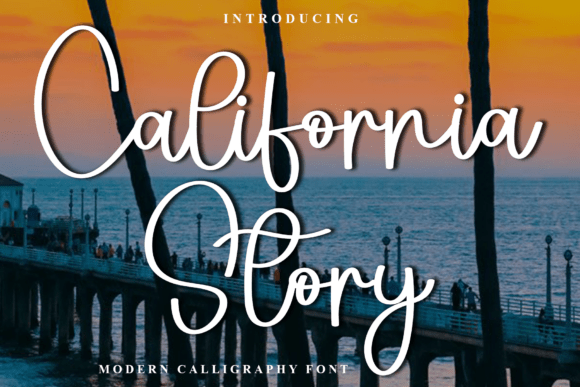
The Perfect Blend of Elegance and Whimsy: California Story Font
There’s something magical about scribbling down a heartfelt message in a beautiful script font – it’s as if the words become infused with a deeper meaning, a personal touch that speaks directly to the heart. For designers and creatives, finding that perfect font can be a game-changer, elevating a simple design into a stunning work of art.
Enter California Story Font, a stylish and elegant script font that adds a touch of sophistication to any design. Whether you’re creating wedding invitations, thank-you cards, or business logos, this font is sure to make a lasting impression. Its versatility and beauty make it an invaluable tool for designers looking to add a handwritten touch to their work.
With its unique blend of elegance and whimsy, California Story Font is a valuable addition to any designer’s toolkit. Whether you’re a seasoned pro or just starting out, this font is sure to inspire your creativity and help you bring your designs to life.
California Story Font Key Features
- Font Family: California Story is a unique, hand-drawn font designed to evoke the feeling of vintage California.
- Unique Characteristics: California Story features a distinctive, hand-drawn aesthetic with subtle imperfections, giving it a unique and authentic feel.
Designer Review: California Story Font
At first glance, the California Story Font seems like a charming addition to any design project. ✨ The elegant, handwritten script font is reminiscent of classic Hollywood movie titles and feels fitting for a nostalgic or vintage-inspired design aesthetic.
One of the strengths of the California Story Font is its versatility. ✨ It works well for a variety of applications, from body text to headings, and can be used in both print and digital media. Additionally, the font’s flowing connections and subtle flourishes add a touch of sophistication to any design.
- Charming, elegant script font style
- Works well for vintage or nostalgic designs
- Highly versatile for various design applications
- May not be suitable for modern or minimalist designs
- Lack of bold or italic weight options
- May require additional styling to achieve desired look
Overall, the California Story Font is a solid choice for designers looking to add a touch of elegance and sophistication to their projects. However, it may not be the best fit for every design style or aesthetic.
Tips for Getting the Most Out of California Story Font
To get the most out of California Story Font, use it to create eye-catching headings and titles. Pair it with bold and modern designs to create a unique and stylish look. You can also use it to add a vintage touch to your designs.
California Story Font is commonly used for:
• Creative projects, such as art portfolios and photography websites
• Marketing materials, such as brochures and flyers
• Branding materials, such as logos and business cards
Alternatives to California Story Font
Playfair Display is a luxurious, high-end serif font perfect for adding elegance and sophistication to your designs. It’s ideal for use in high-end branding, luxury products, and premium services. Compared to California Story Font, Playfair Display has a more formal and traditional feel, making it a great choice for formal invitations, certificates, and awards.